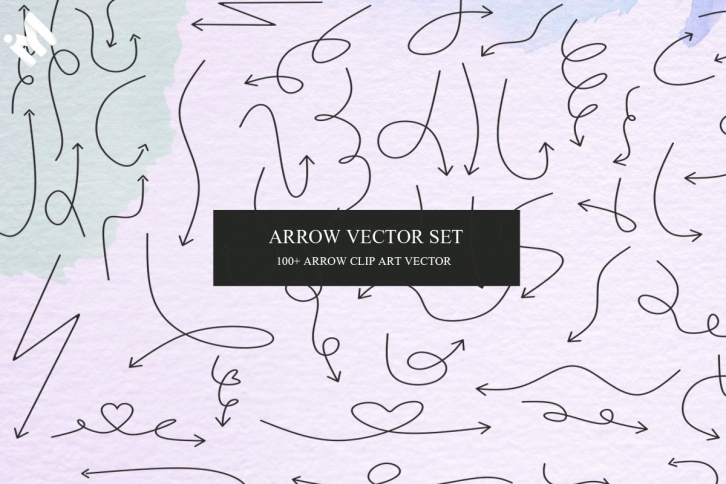
Arrows is a unique and useful dingbats font containing 100+ doodles. Whether you’re using it for crafting, digital designing, presentations or greeting cards making, it’s perfect!